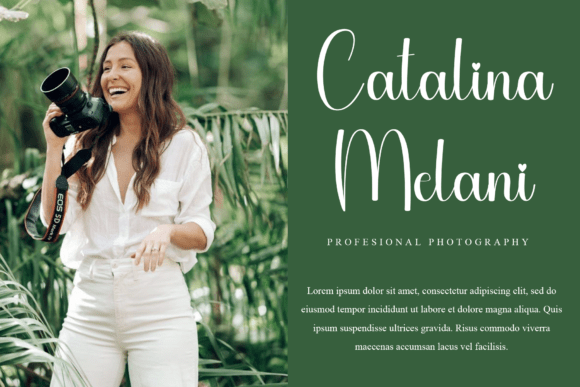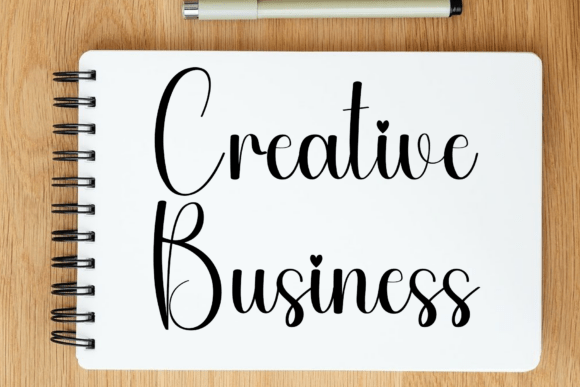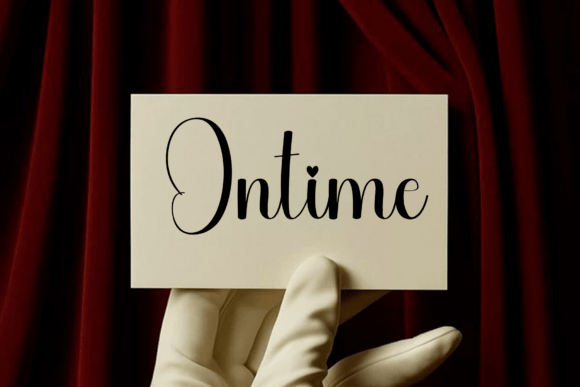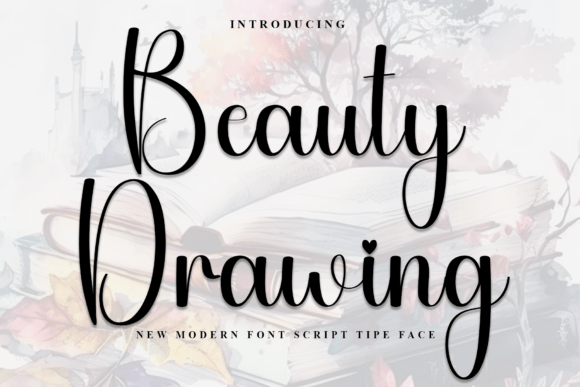
Introduction to Beauty Drawing Font
Beauty Drawing is a casual and creative font that exudes warmth and friendliness.
Its round, playful strokes create a relaxed and approachable feel, perfect for personal projects, invitations, and social media graphics The font’s charming, hand-drawn aesthetic adds a fun and unique touch to any design.
Key Features of Beauty Drawing Font
Why Choose Beauty Drawing Font?
Beauty Drawing Font offers exceptional quality and versatility, making it a valuable addition to your design toolkit. Whether you’re creating for personal projects or commercial use, Beauty Drawing Font delivers professional results.